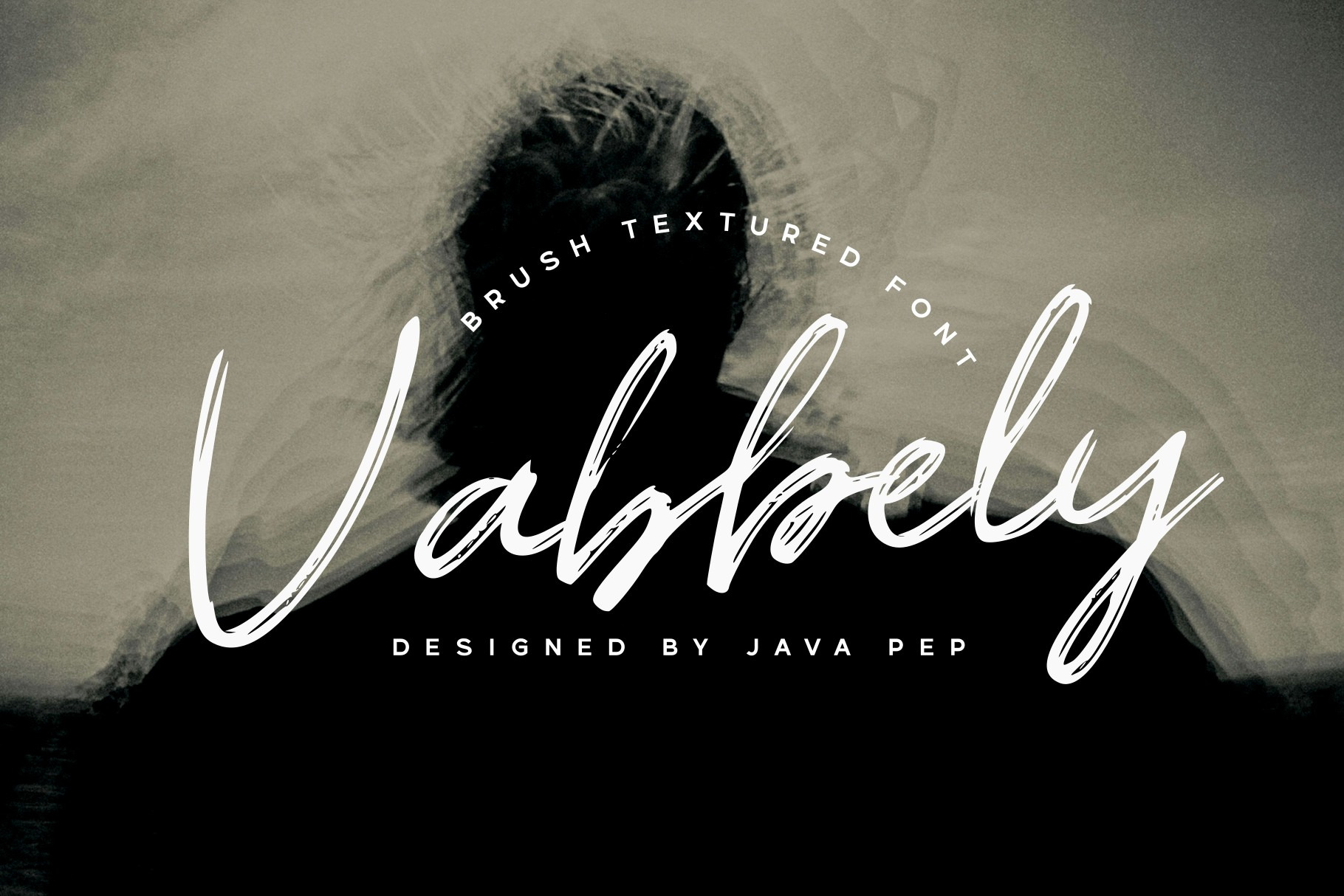
Vabbely / Brush Textured Typeface
Introducing Vabbely font, a brush-textured typeface font. Vabbely font is suitable for themed projects that convey a sense of boldness, elegance, masculinity, hipster style, etc, and to highlight an informative design. Vabbely font is perfect for logotypes, branding, headline text, quotes, signatures, etc. This font comes with multilingual support, that have more than 25 languages.
- Uppercase, lowercase, numeral, and punctuation
- Multilingual support, more than 25 languages
- Pua encoded